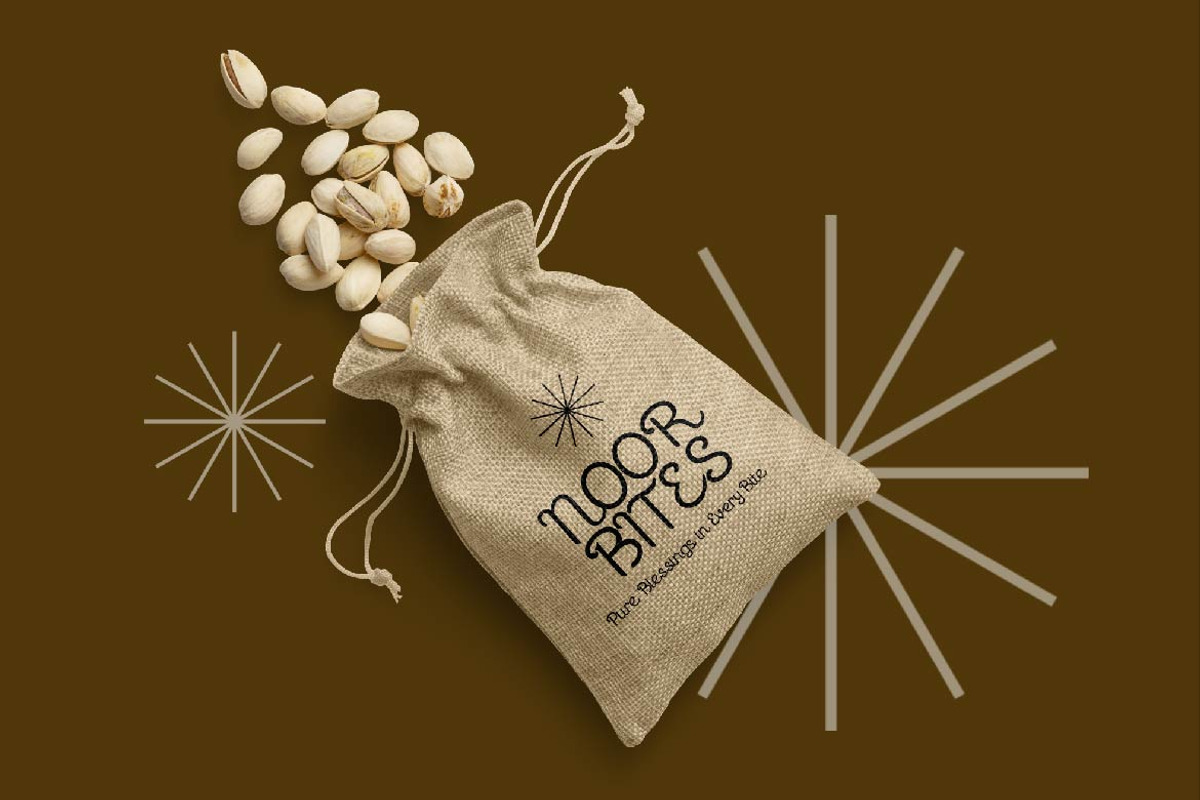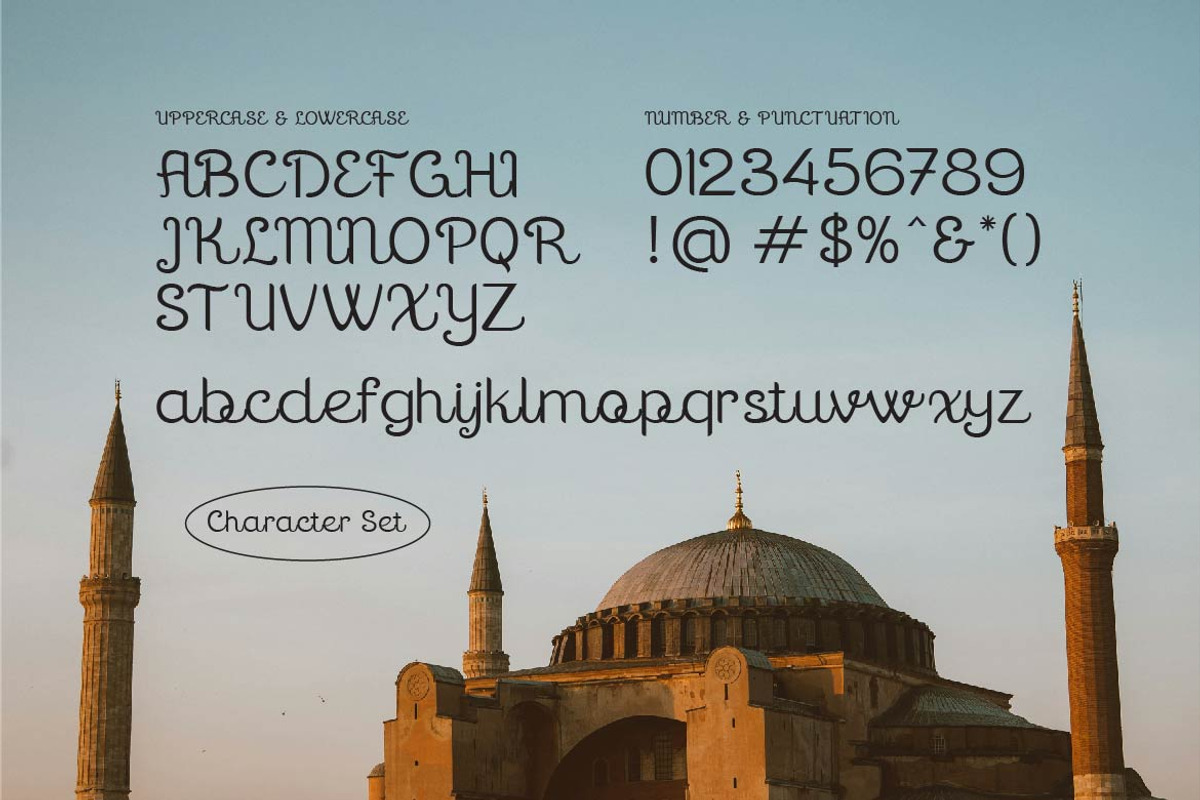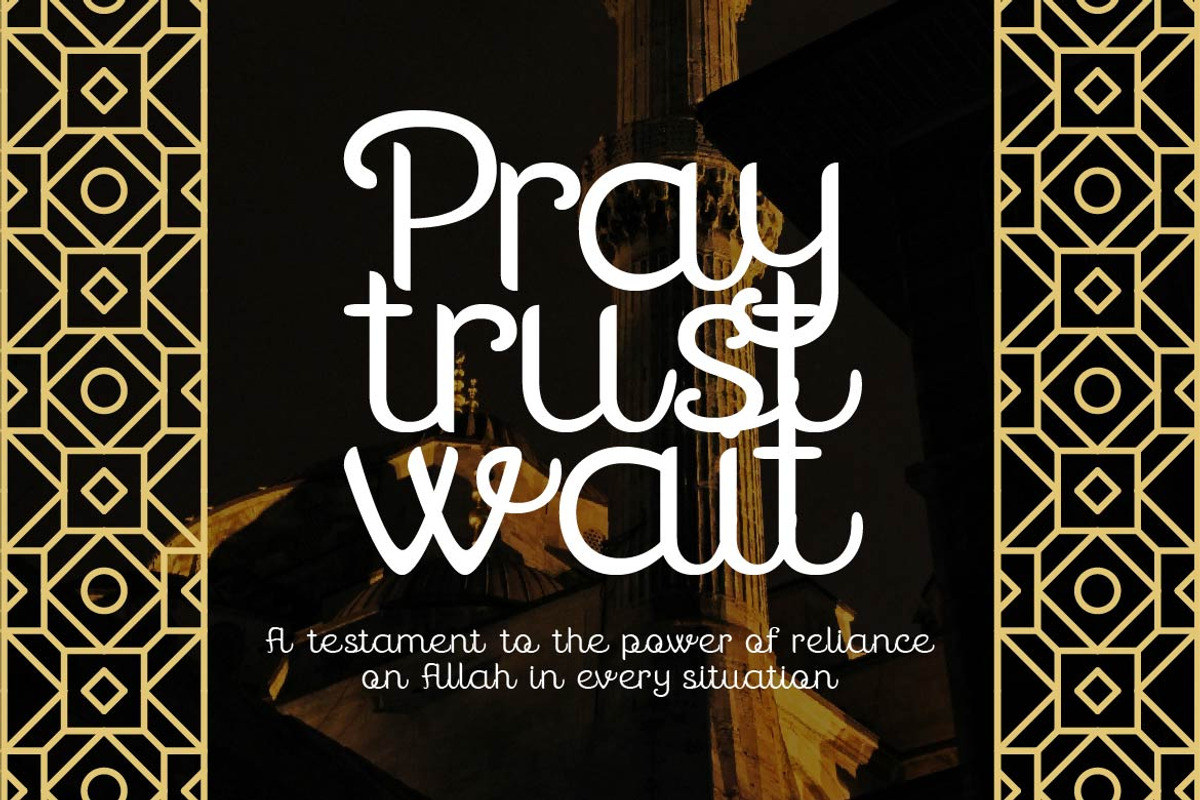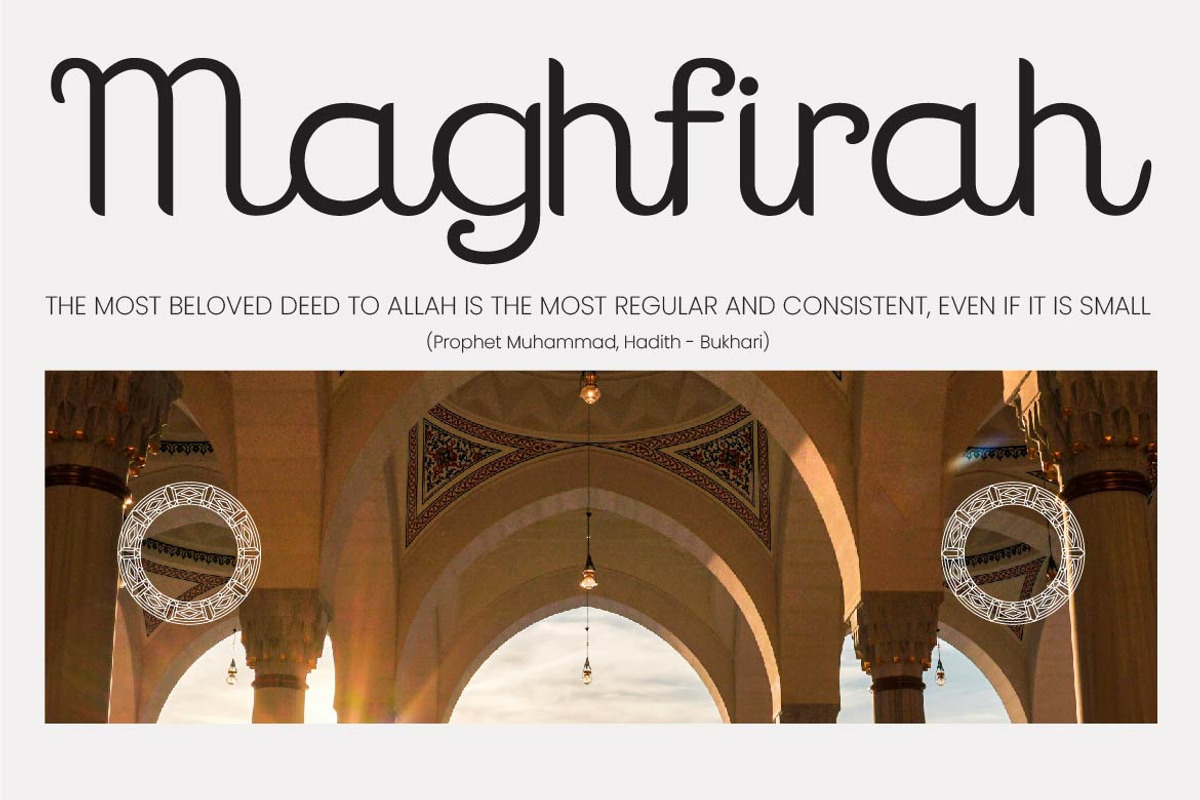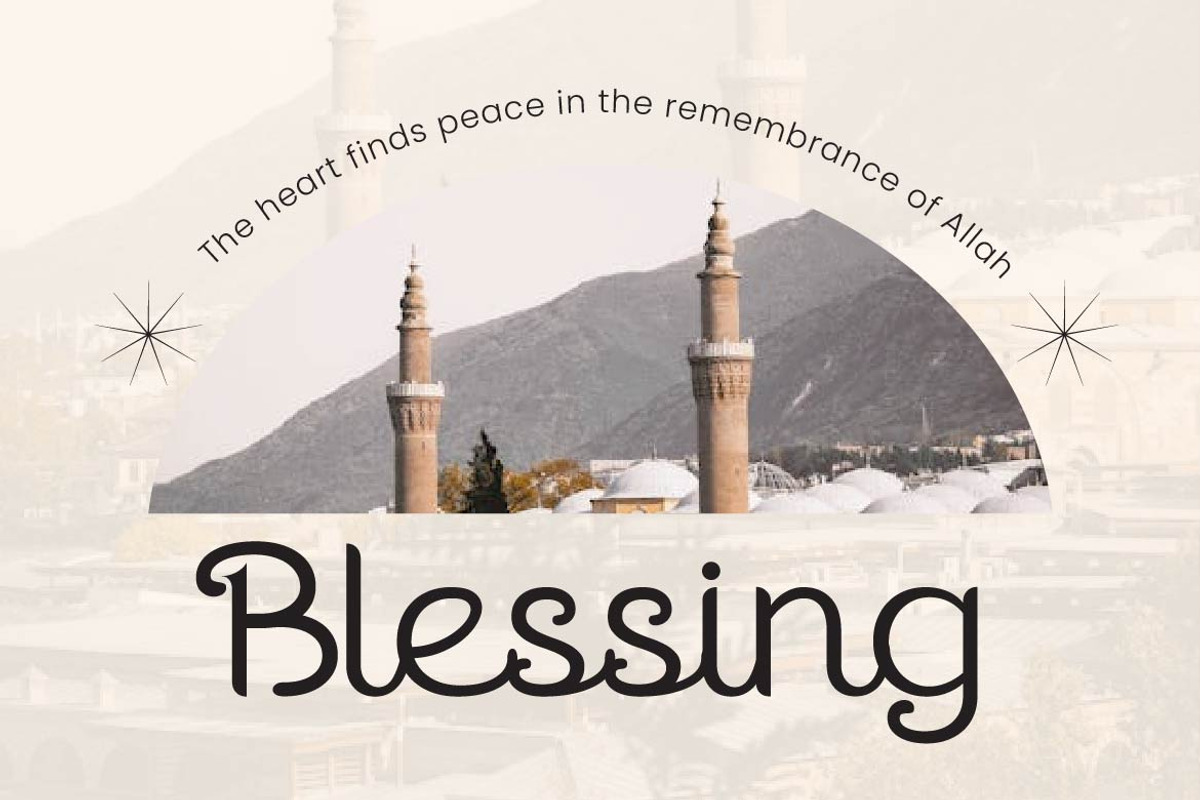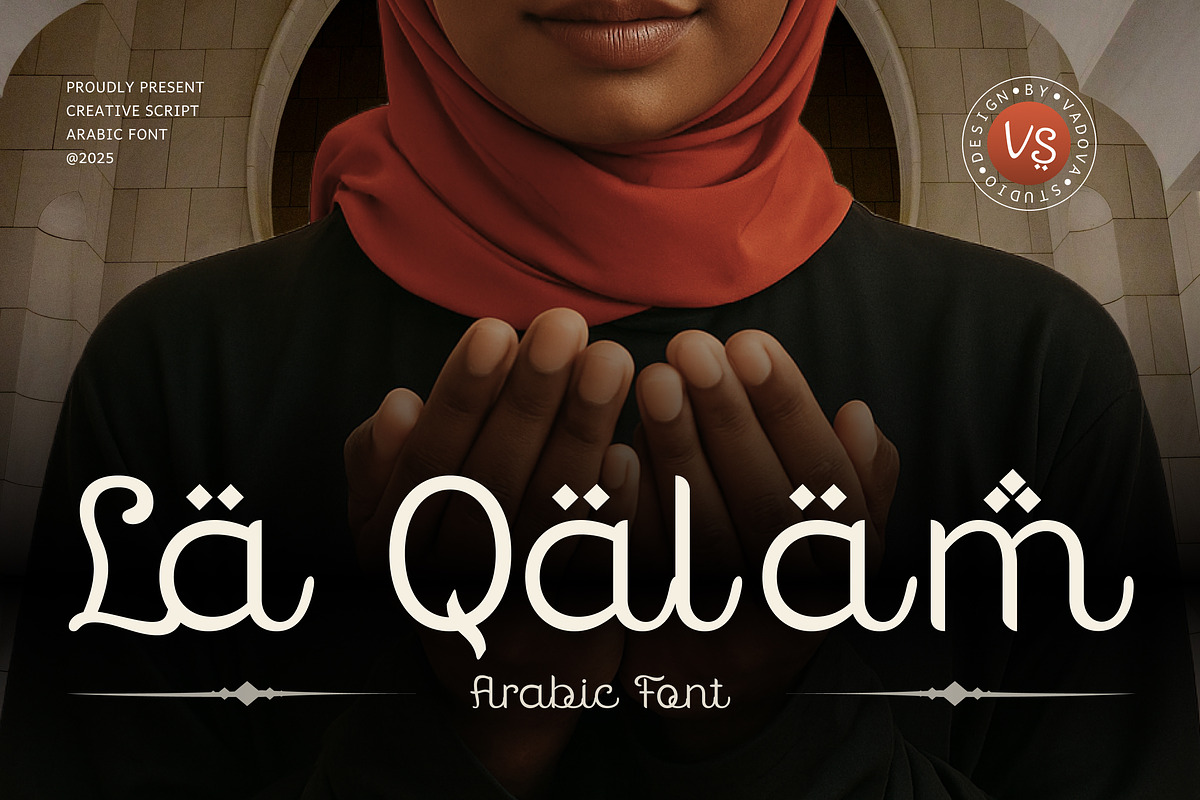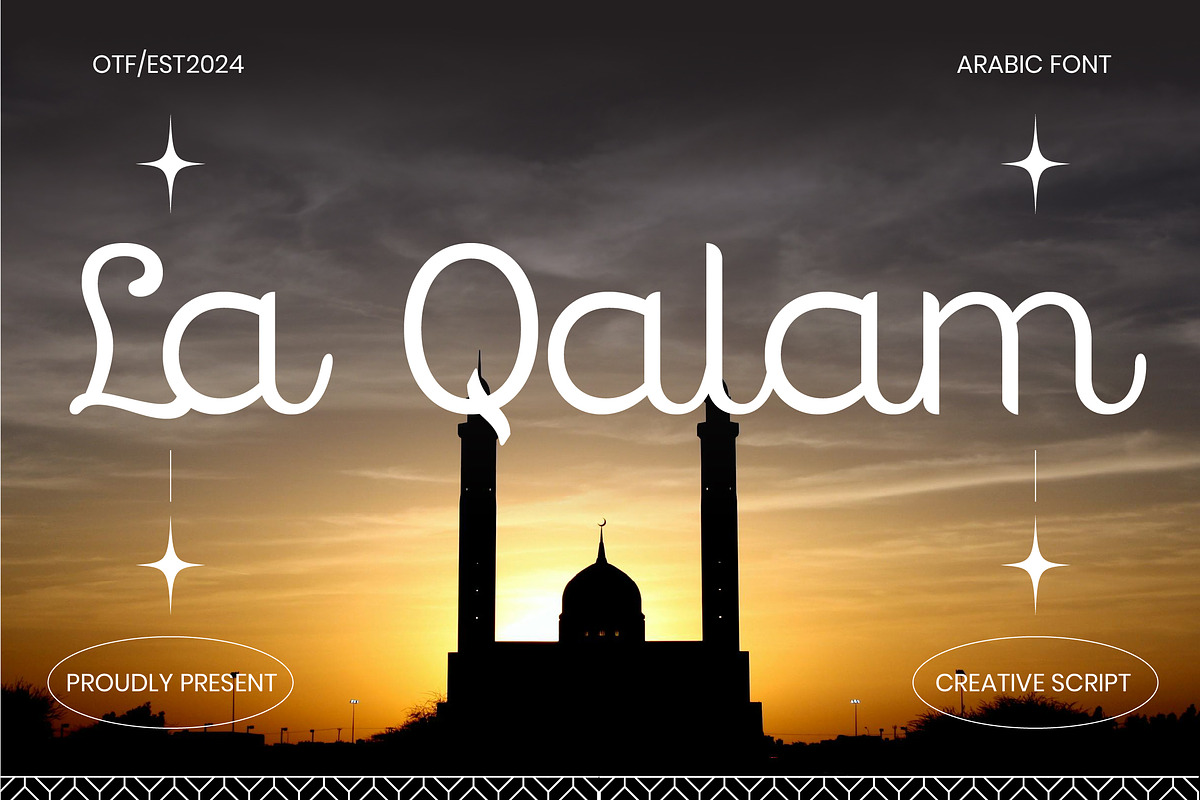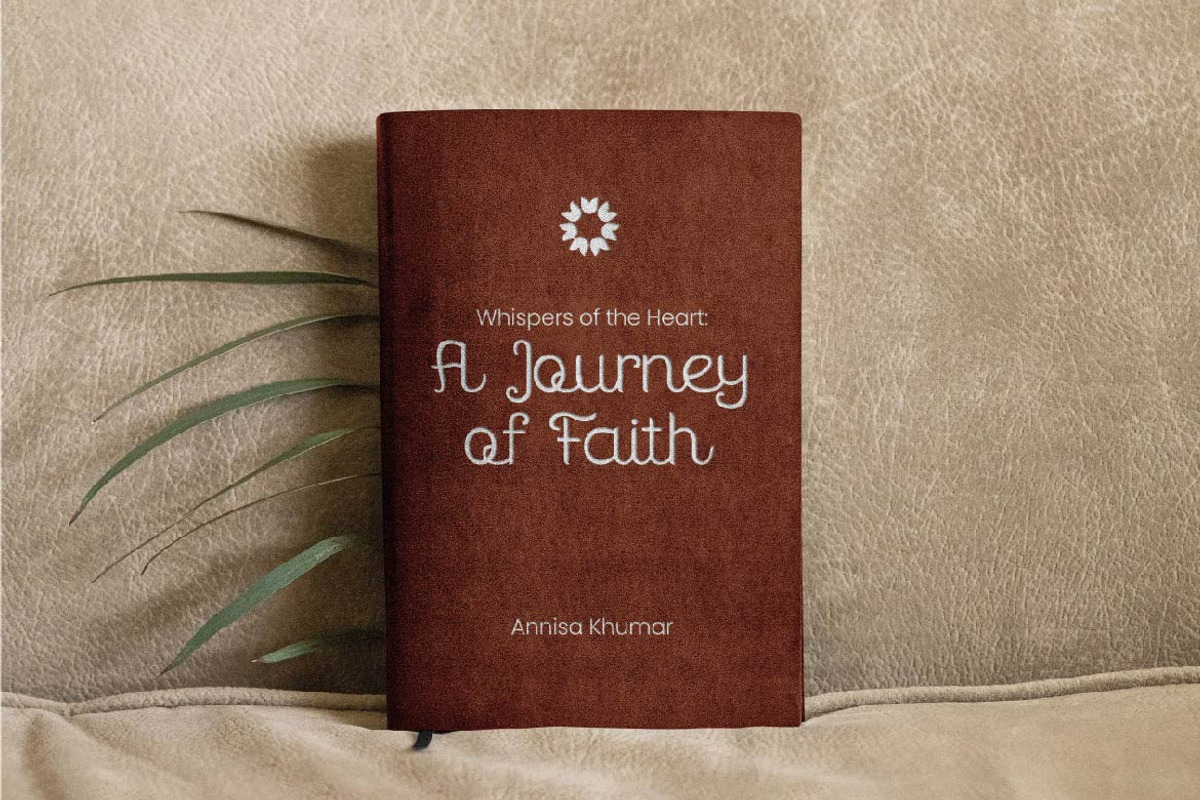
La Qalam – Creative Arabic Script
La Qalam is a beautifully crafted Arabic-style script font that merges spiritual grace with modern design. Inspired by classic calligraphy and cultural aesthetics, each letterform carries a sense of heritage and devotion, making it a meaningful choice for projects that require both beauty and authenticity.
Its smooth curves and expressive shapes bring a refined, handcrafted feel that’s perfect for designs tied to Islamic culture, traditional celebrations, or elegant branding. La Qalam’s timeless character ensures your work resonates with warmth, faith, and creativity.
Font Highlights
Uppercase & lowercase letters
Numerals and punctuation
Script font with Arabic cultural inspiration
Why Designers Love It
Cultural Elegance – Captures the essence of Arabic script in a refined, modern way.
Expressive & Unique – Adds personality and depth to creative projects.
Versatile Design – Works beautifully in both digital and print applications.
Spiritual Aesthetic – Perfect for religious events, festive occasions, and meaningful storytelling through design.
Best Use Cases
Islamic event invitations and posters
Religious branding and identity design
Product packaging with cultural themes
Wedding cards and stationery
Editorial headlines and artistic layouts
Social media posts with spiritual messages
Elevate your designs with cultural soul and timeless beauty — choose La Qalam to bring elegance and meaning into every letterform.